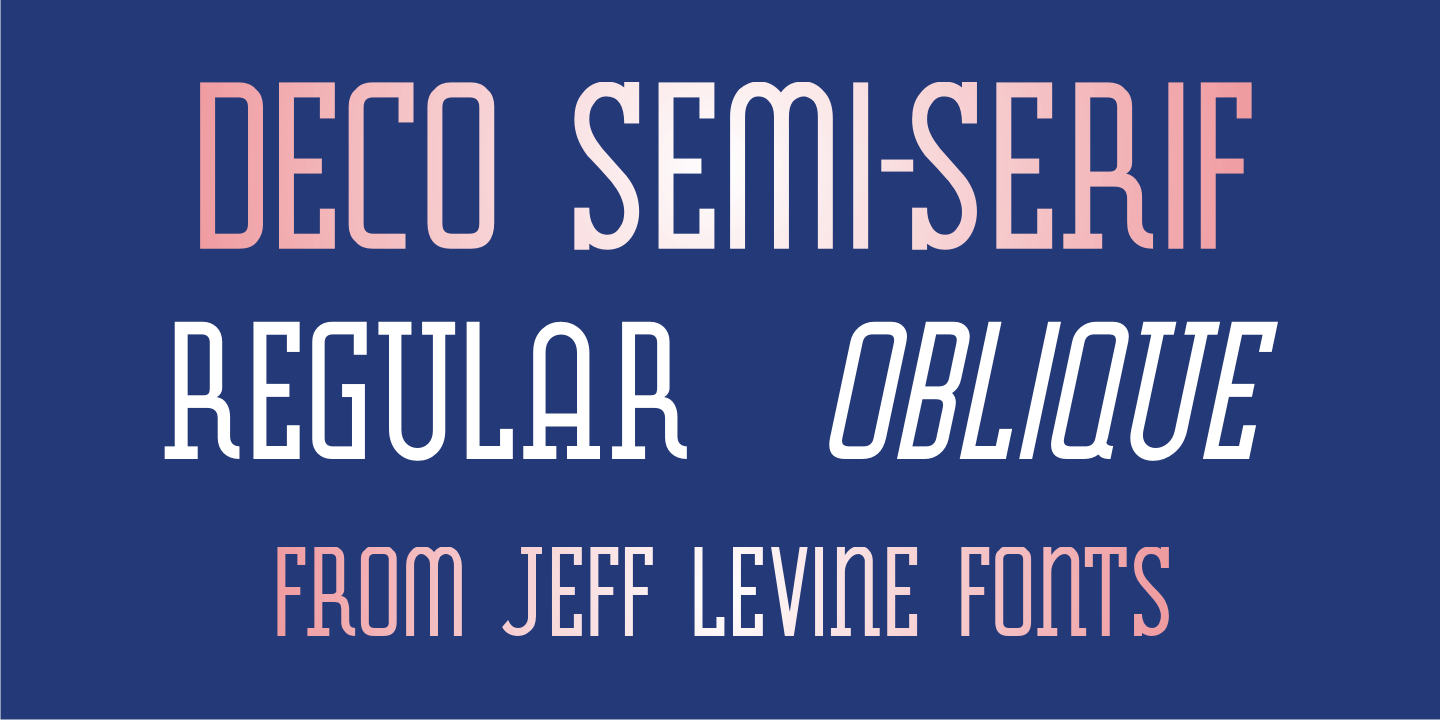
Deco Semi Serif
Deco Semi Serif JNL was modeled from the hand lettered title on sheet music cover for the 1933 song 'Another Perfect Day Has Passed Away”.
This interesting design blend of serif, sans serif and partial-serif characters commands attention with its eccentric mix of letter forms, and is available in both regular and oblique versions.